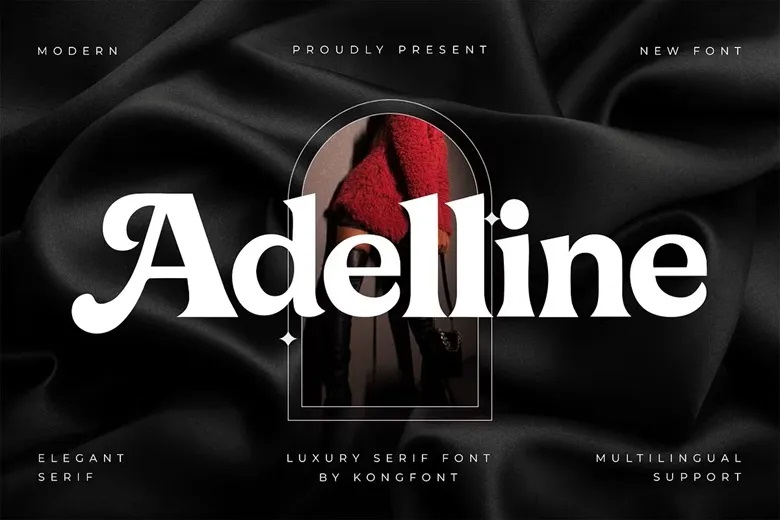
Adelline Font
Introducing Adelline, a luxury serif font that brings timeless elegance and sophistication to your work. With its graceful curves, bold strokes, and classic style, Adelline adds a premium touch to everything from branding and magazines to wedding invitations and high-end packaging.
Adelline Serif Font